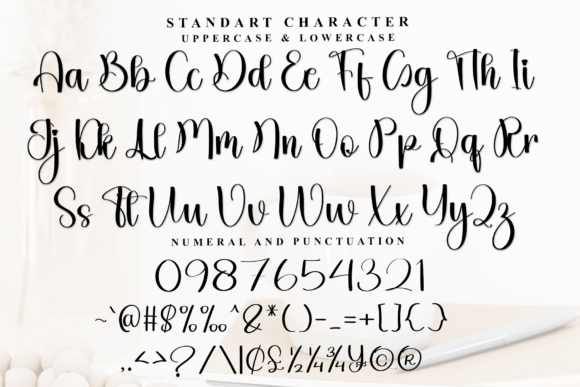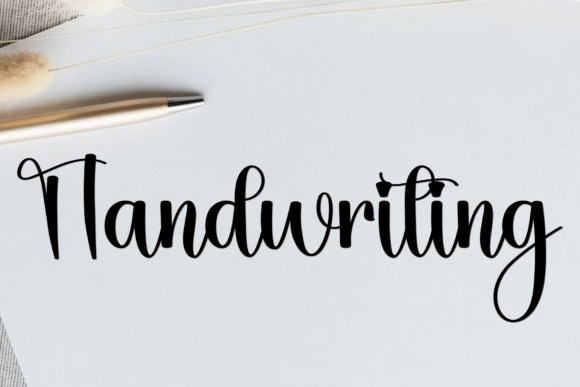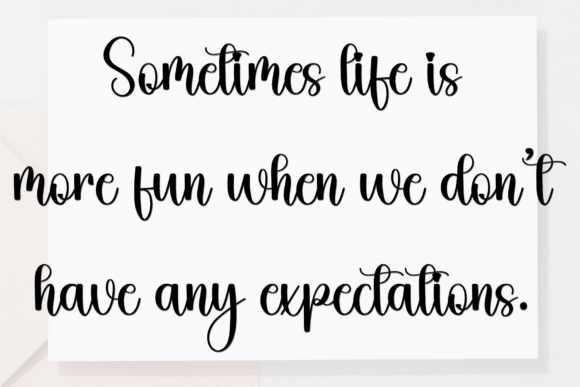
As I sit down to plan this year’s holiday card designs, my mind is flooded with memories of childhood winters: snowflakes gently falling outside, the warmth of twinkling lights, and the joy of exchanging gifts with loved ones. It’s the perfect time to get creative and infuse some holiday magic into our designs. And that’s exactly where the Holiday Wednesday Font comes in – a delightful, festive typeface that captures the essence of the season.
This charming font is more than just a pretty face; it’s a valuable tool for designers looking to add a touch of whimsy and nostalgia to their projects. Whether you’re creating greeting cards, gift tags, or holiday-themed merchandise, the Holiday Wednesday Font is sure to bring a smile to your audience’s faces. With its PUA encoding, accessing the font’s amazing glyphs and ligatures is a breeze, making it a must-have for any designer looking to spread holiday cheer.
Holiday Wednesday Font Key Features
- Unique Characteristics: Holiday Wednesday Font features a unique, handwritten style with a touch of elegance and sophistication, making it perfect for use in invitations, greeting cards, and other festive designs.
- Font Style: The font has a script style with varying line widths and a subtle flair at the ends of the letters, giving it a dynamic and expressive feel.
Holiday Wednesday Font Review
At first glance, I was drawn to the whimsical and festive vibe of the Holiday Wednesday Font. It’s perfect for adding a touch of seasonal cheer to your holiday marketing materials ✨. The font’s playful, handwritten feel is reminiscent of handwritten notes and handwritten gift tags, which I think many people will find endearing.
- The font’s irregularity and imperfections make it feel more human and less robotic ✨.
- The font is highly legible, even at smaller sizes ✨.
- The font includes a wide range of characters and symbols, including ornaments and icons ✨.
- The font may not be suitable for formal or professional applications ⚠️.
- The font’s imperfections can also make it difficult to use in certain contexts, such as in situations where precision and consistency are crucial ⚠️.
- The font is quite busy, which can make it difficult to read in certain situations ⚠️.
Overall, I think the Holiday Wednesday Font is a great choice for holiday marketing materials, but it may not be the best choice for every situation. With some careful consideration and planning, it can add a touch of festive cheer to your designs.
The Holiday Wednesday Font is ideal for creating festive and holiday-themed designs, such as:
Christmas and New Year’s Eve invitations and cards
Halloween and Thanksgiving decorations and signage
Summer and winter holiday-themed social media graphics and posters
To get the most out of the Holiday Wednesday Font, try:
Combining it with other festive fonts and graphics for a cohesive look
Using it in bold and italic styles to add emphasis
Experimenting with different font sizes and colors to achieve a unique look